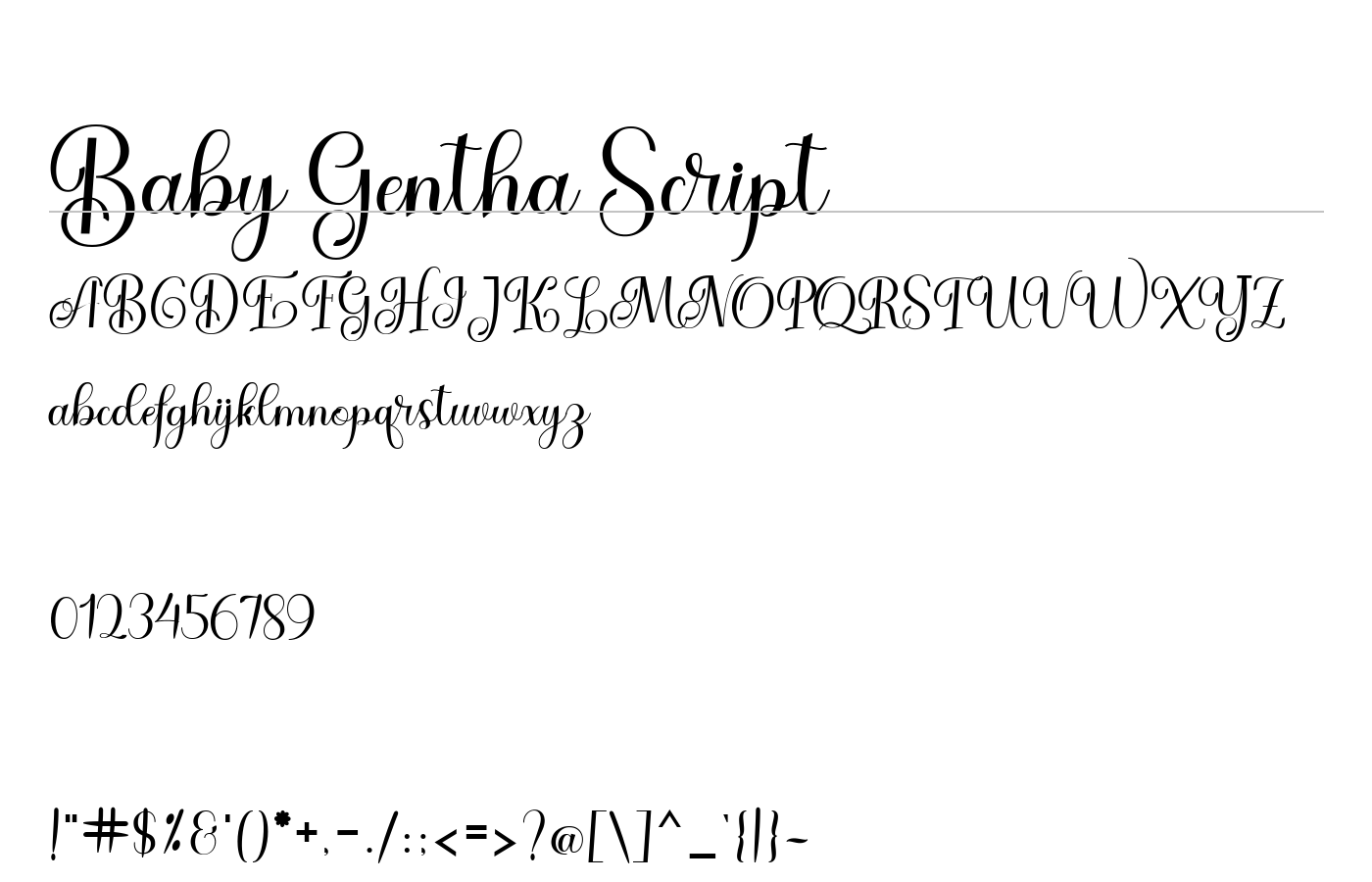
Baby Gentha Script is a delicate and elegant script font with graceful, flowing letterforms that offer a refined handwritten feel. It features slender strokes with subtle contrast and charming swashes, making it perfect for luxury branding, invitations, and feminine design projects that require a touch of sophistication and style. This font works beautifully in headings and decorative text where an artistic, personal flair is desired.
Baby Gentha Script Font
About Baby Gentha Script Font
| Font family | Baby Gentha Script Font |
| Designer | Nurul Kamal |